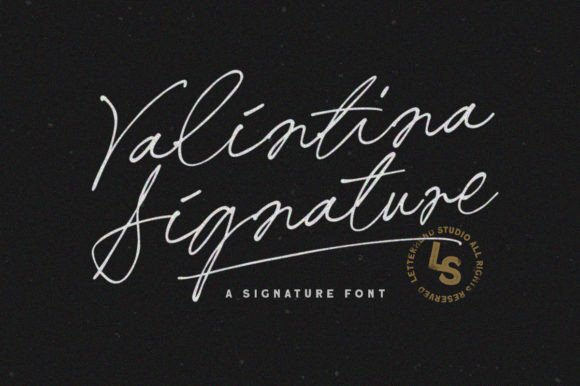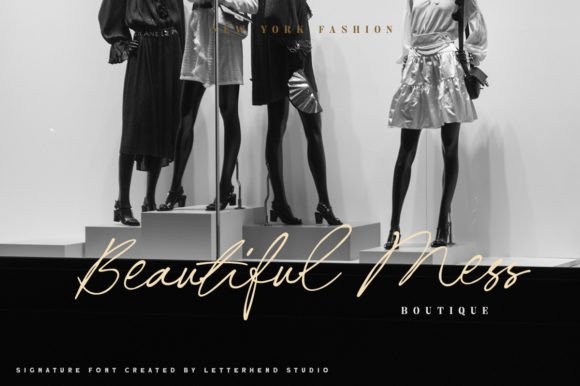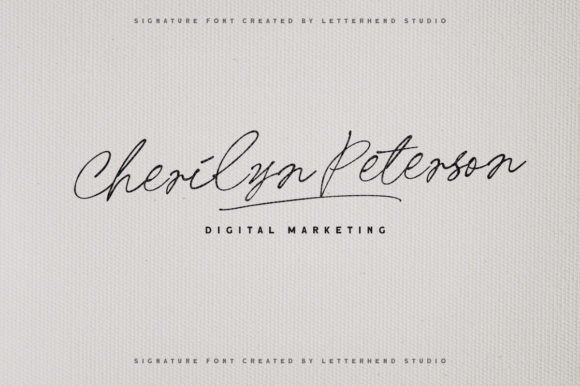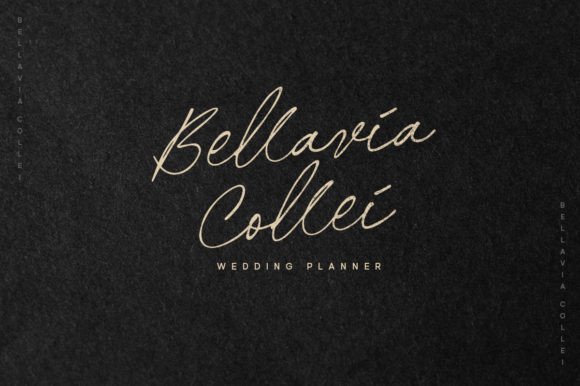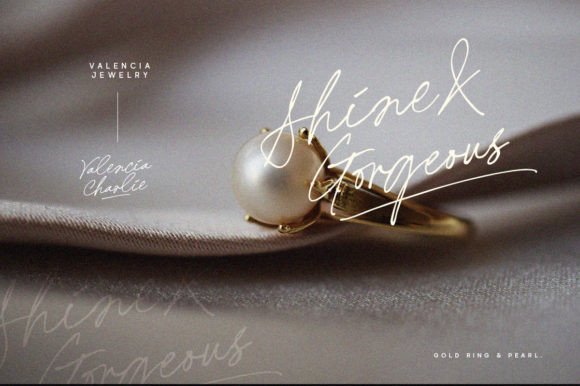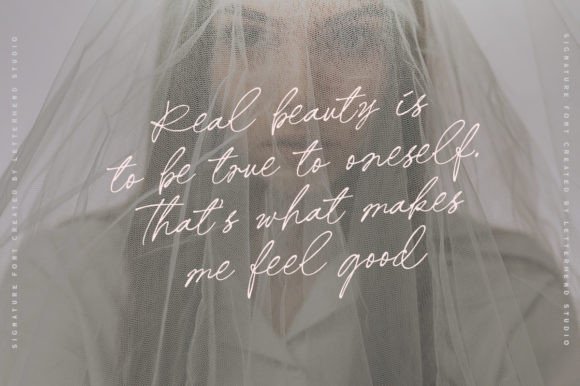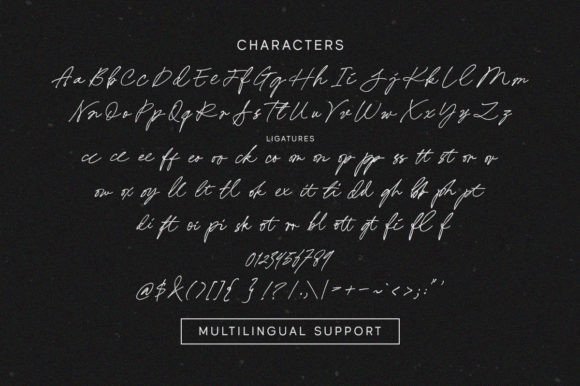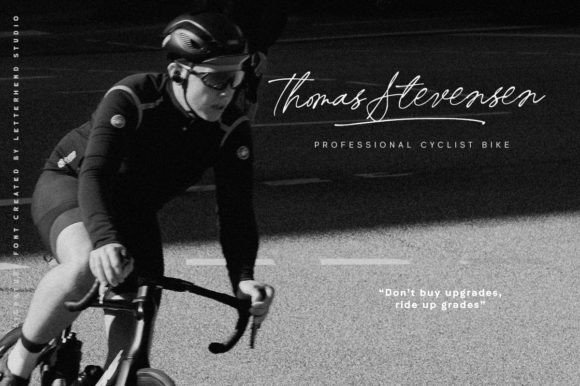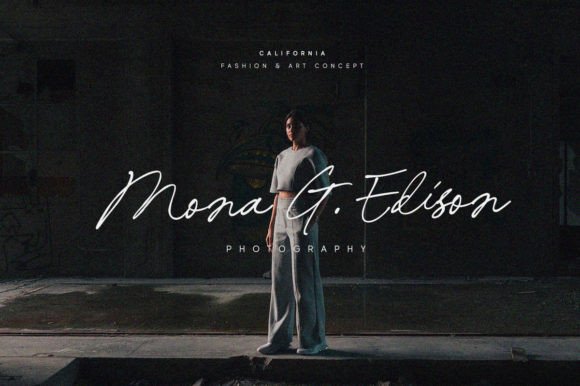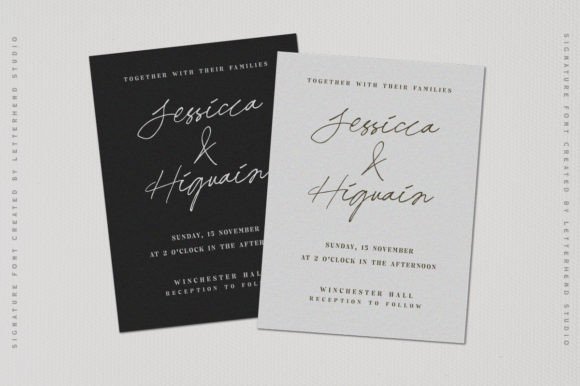
Valintina Signature Font
About Valintina Signature Font
A Signature Script with True Handwritten Appeal
The Valintina Signature Font is a stunning signature script font, designed to mimic the beauty of manual handwriting. This elegant font is the perfect addition to any project requiring a personalized, sophisticated touch. Its stylistic alternates and ligatures give it an authentic handwritten feel, making it ideal for designs that need a human touch.
Realistic Handwritten Look
One of the defining features of the Valintina Signature Font is its tick and thin strokes, which create a realistic handwriting effect. The fluidity and natural flow of the characters give your designs a personal, yet professional appearance. Whether you’re working on a logo, invitation, or wedding card, this font ensures your message looks unique and refined.
Perfect for Logos, Invitations, and More
The Valintina Signature Font excels in creating logos and other formal designs. Its elegance and personality make it ideal for branding, magazines, books, and packaging. It’s also perfect for personal projects, like greeting cards, wedding invitations, and stationery. Whether for business or personal use, this font ensures your designs make a memorable impact.
Versatile for Fashion and Beauty Brands
The Valintina Signature Font is particularly well-suited for fashion and beauty industries. Its elegant, flowing script works wonderfully for product labels, fashion advertising, and makeup packaging. This font’s sophisticated charm adds a high-end touch, making it the perfect choice for businesses aiming to convey elegance and style.
Ideal for Advertising and Packaging
In addition to its beauty, the Valintina Signature Font is extremely versatile. It can be applied to a variety of advertising materials, from flyers to social media posts, ensuring your designs are eye-catching and professional. Its unique style also makes it great for packaging, helping products stand out on store shelves.
Easy Access to All Glyphs and Swashes
Perfect for Personal and Professional Projects
Whether you’re designing for personal or business purposes, the Valintina Signature Font offers the flexibility and elegance you need. Its unique, handwritten style adds a personal touch, making it perfect for custom greeting cards, novels, labels, or any type of formal advertising.
Elevate Your Designs with Handwritten Elegance
If you want to elevate your designs with a touch of handwritten elegance, the Valintina Signature Font is the perfect choice. Whether for stationery, books, or fashion packaging, its flowing script will make any project feel special. Bring your designs to life with the Valintina Signature Font and enjoy the ease of working with a truly unique typeface.